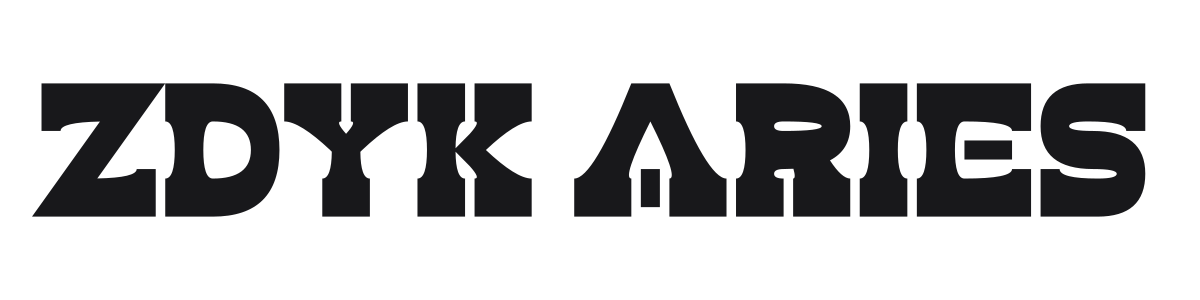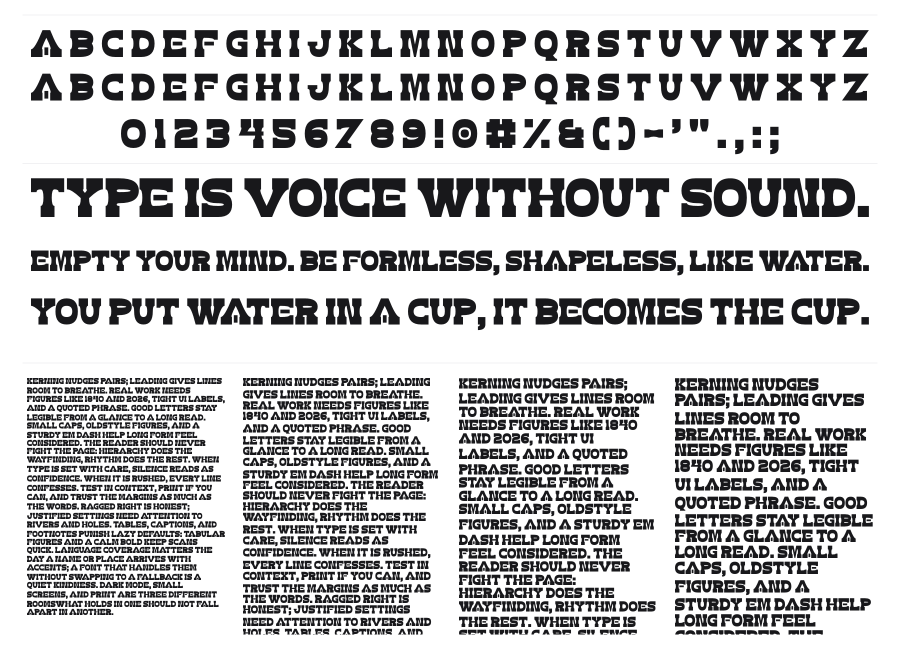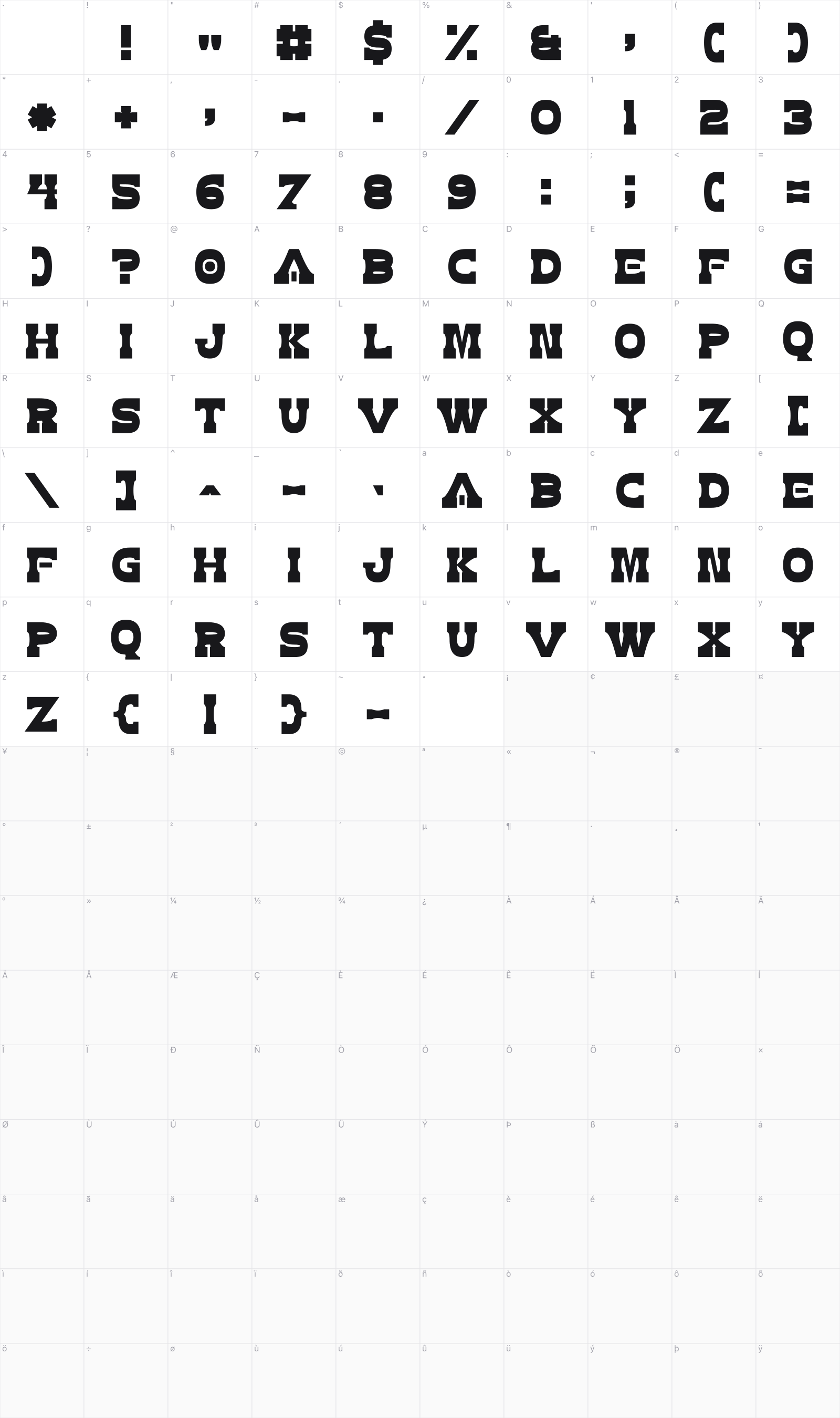
Zdyk Aries
Zdyk Aries is a heavy western display serif with dramatic stroke contrast and angular slab details drawn from the wood-type poster tradition. Cutout notches embedded in the thick stems add an unexpected structural detail that keeps the design from feeling like a straight revival. It works best large, where the contrast and quirks read clearly.